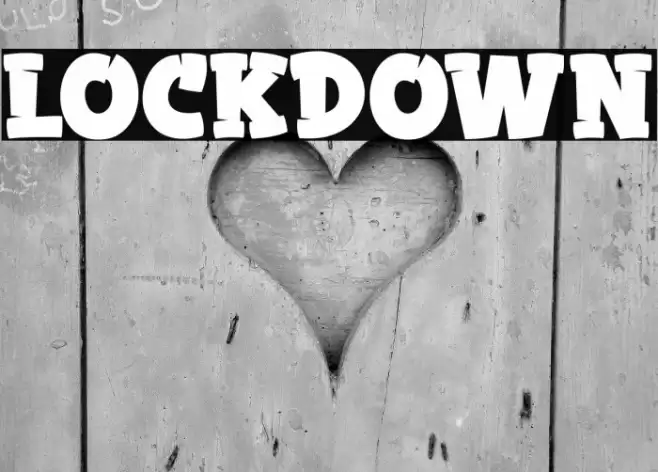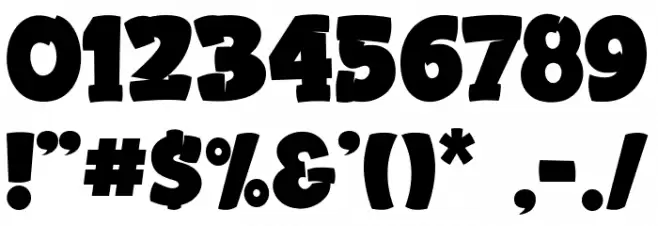
LOCKDOWN Font
LOCKDOWN Description
This font features a bold and playful style with exaggerated, rounded forms and a heavy weight. The characters are thick and robust, with a slightly irregular shape that adds a whimsical and fun touch. The strokes are consistent in width, creating a uniform appearance across all characters. The font has a strong presence and is highly legible, making it suitable for eye-catching designs. The uppercase and lowercase letters maintain a cohesive look, while the numerals and special characters complement the overall style. Its boldness and unique character make it ideal for projects that require a standout typeface.
A bold, playful font with rounded, exaggerated forms and a whimsical style from Cartoon fonts.
- Proposed Projects: Ideal for children's books, playful branding, posters, and creative advertising.
- Overall Style: Playful, Whimsical
- Use Case: Headlines, Posters, Branding